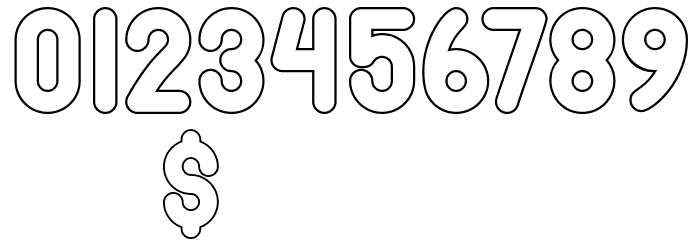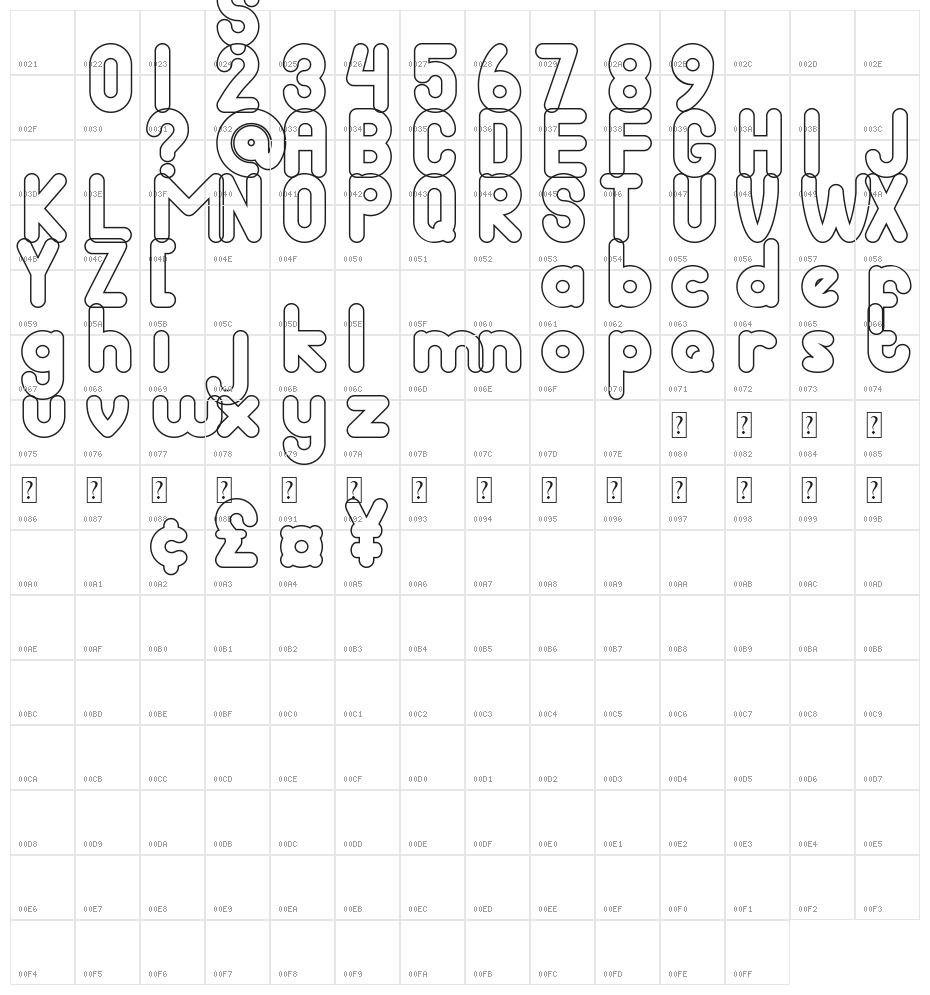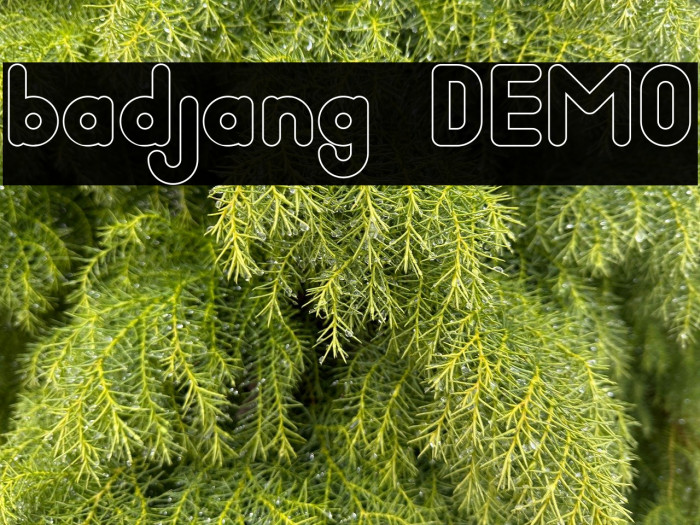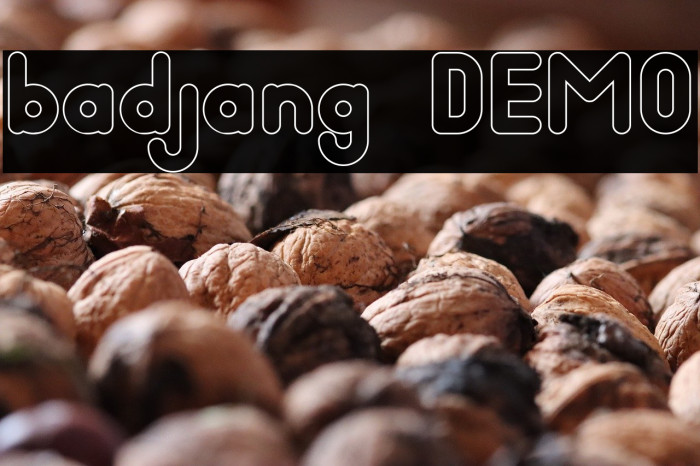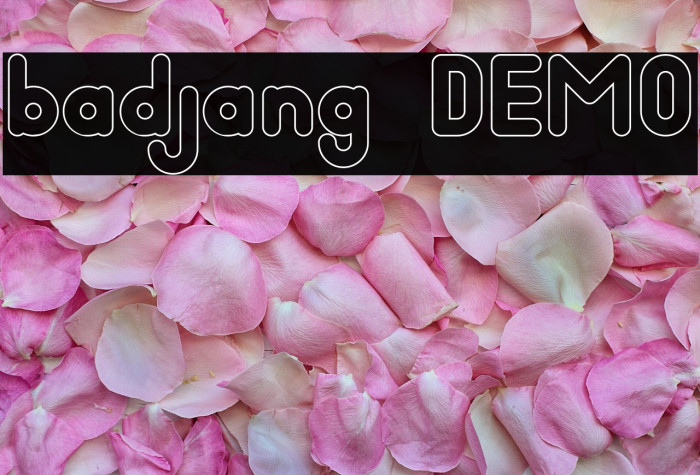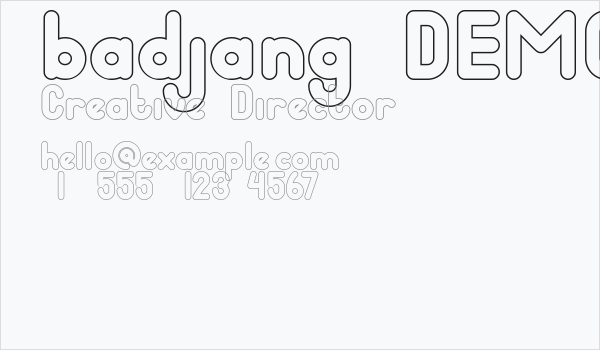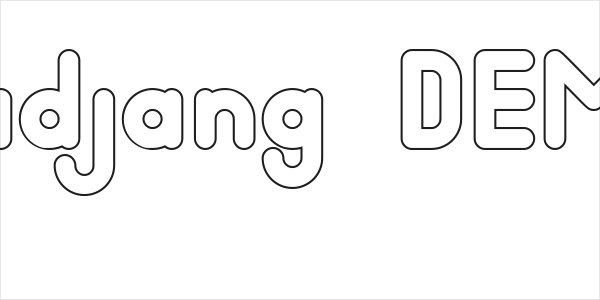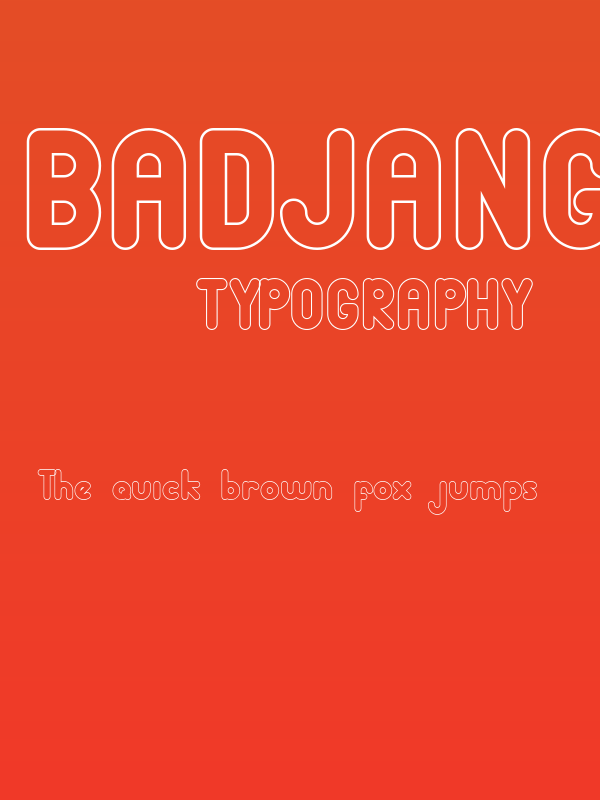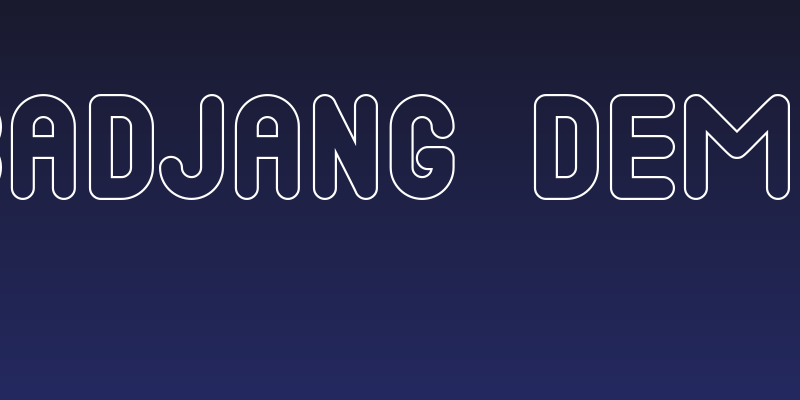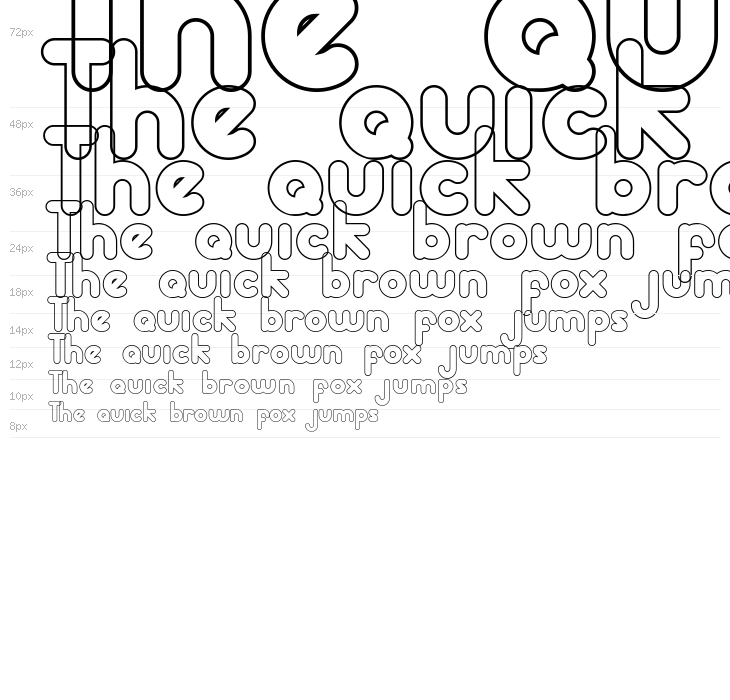
badjang DEMO Font
badjang DEMO Description
This font features a playful and bold outline style, with each character enclosed in a thick, uniform border. The letters are rounded and smooth, giving a friendly and approachable appearance. The uppercase and lowercase letters maintain consistent proportions, while the numerals are equally bold and rounded. The special characters, such as the dollar sign, are designed with the same outline style, ensuring a cohesive look across all glyphs. This font's unique outline design makes it stand out, adding a touch of creativity and fun to any project.
| Overall Style | Playful, Creative |
| Proposed Projects | Ideal for children's books, playful branding, posters, and creative design projects. |